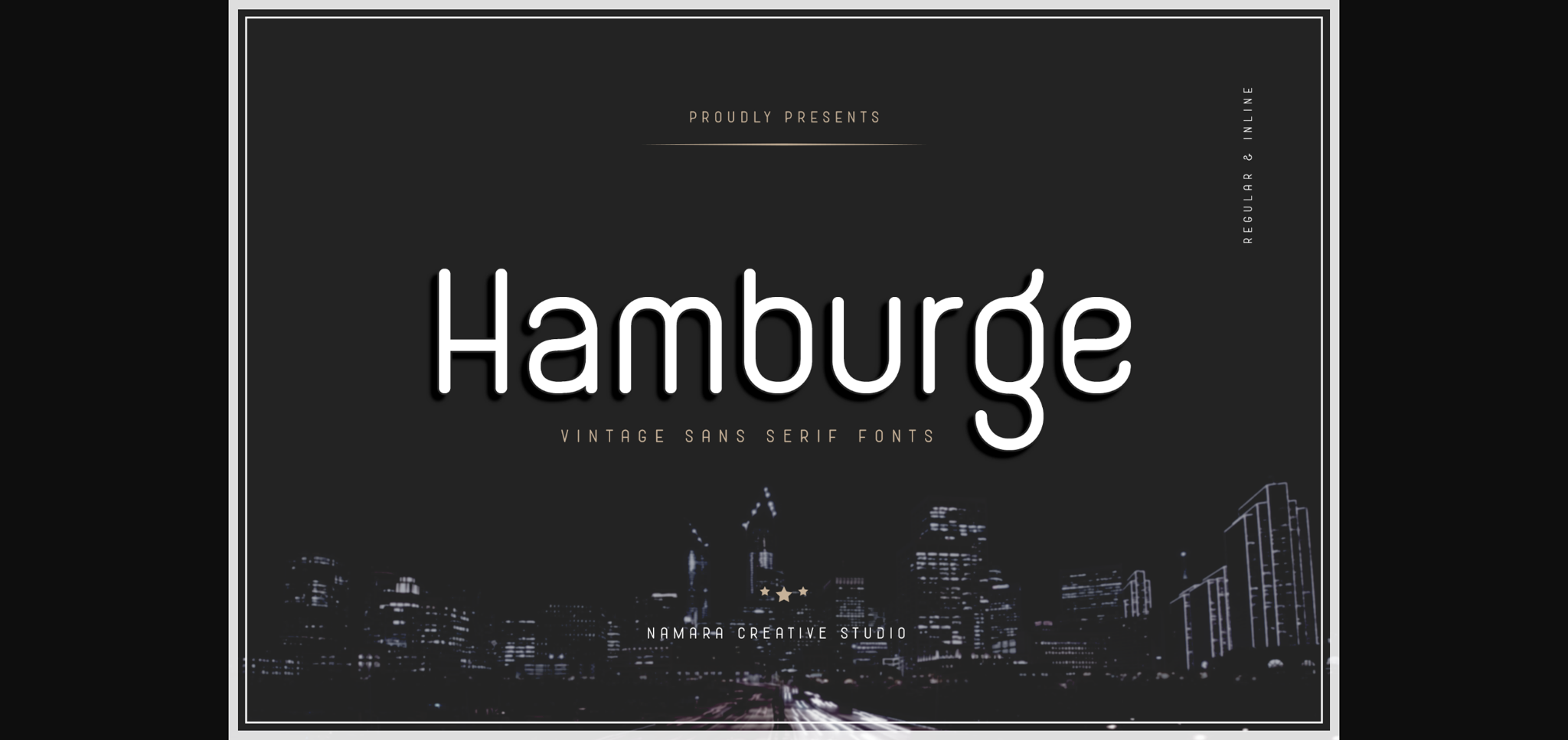
About Hamburge Font
Hamburge is a classic, clean, and versatile sans-serif font. It is suitable for any branding, product packaging, invitation, quote, t-shirt, label, poster, logo that you wish to develop.